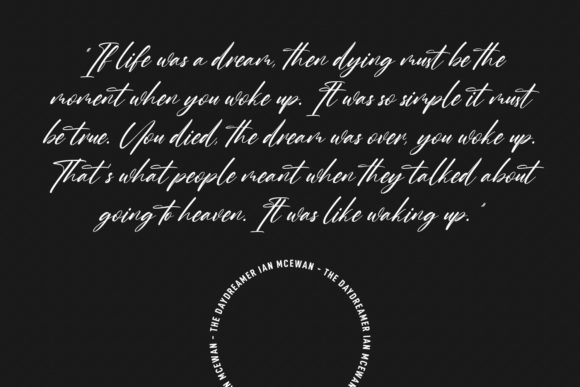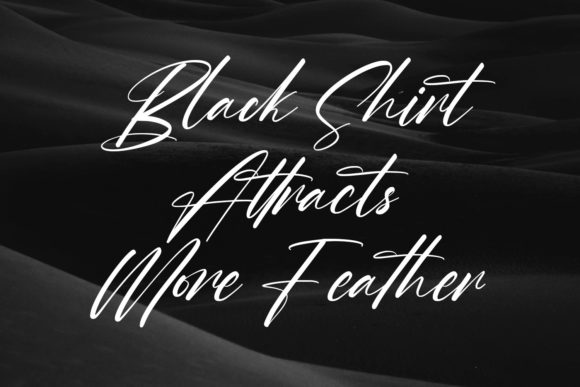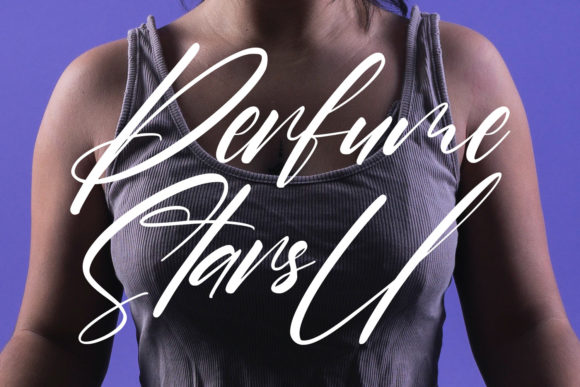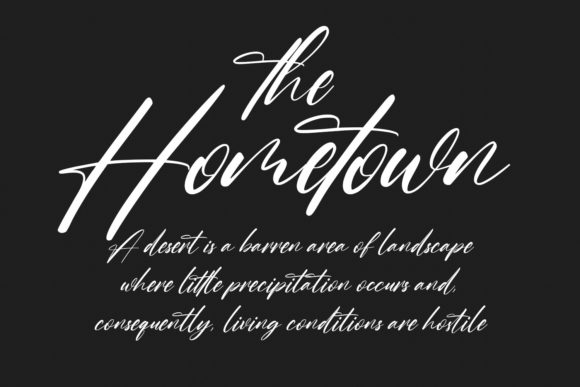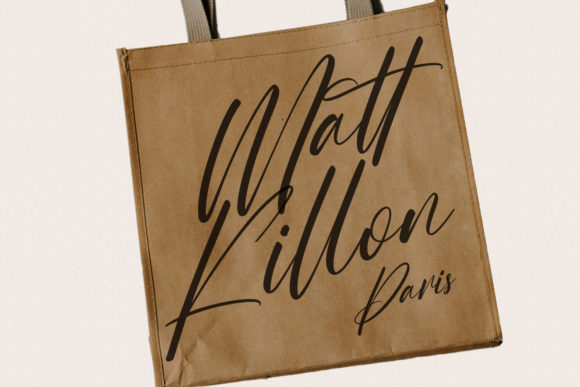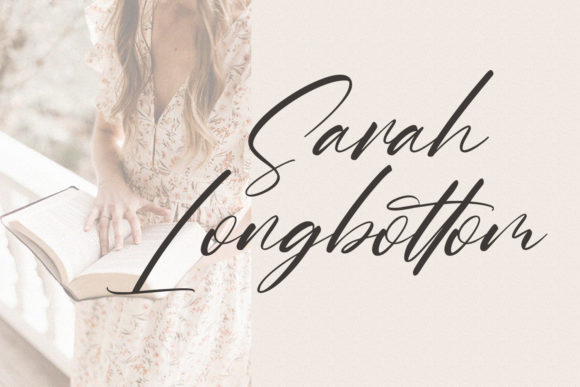
About Charlotte Matthew Font
Charlotte Matthew is an enchanting and sophisticated script font that brings a touch of luxury and whimsy to a wide array of design projects. With its medium contrast strokes, playful characters, and intricate details, this font adds a unique and captivating flair to any creative endeavor.
In the realm of blog posts, Charlotte Matthew shines as a font that effortlessly captures readers’ attention and enhances the visual appeal of your content. Its elegant and flowing letterforms make text easy to read while infusing your blog posts with a sense of charm and personality.
For logos and branding, Charlotte Matthew offers a distinctive and memorable style that helps your brand stand out in a competitive landscape. Its intricate details and variety of ligatures and alternates allow for creative customization, ensuring that your logo is both visually striking and uniquely representative of your brand identity.
In advertisements, this font adds an air of sophistication and elegance that can elevate the impact of your marketing materials. Whether you’re designing print ads, online banners, or social media posts, Charlotte Matthew’s versatile and stylish characters will draw viewers’ attention and leave a lasting impression.
Invitations and greeting cards are transformed into works of art with Charlotte Matthew. Its whimsical and fancy script adds a touch of extravagance to special occasions, making every invitation a memorable keepsake and every greeting card a delightful memento.
The font’s versatility extends to planners, photo albums, and decorations, where its ornate details and playful charm enhance the visual appeal of your designs. Whether you’re creating decorative elements for an event or designing a personalized photo album, Charlotte Matthew’s medium contrast strokes and fun characters make each project a true work of art.
With its wide range of potential applications, Charlotte Matthew proves to be a versatile and captivating choice for designers seeking a font that exudes both sophistication and playfulness. Its inclusion of ligatures and alternates allows for creative exploration and customization, ensuring that each project is infused with a unique and delightful touch. Whether you’re working on logos, branding, invitations, blog posts, or any other creative endeavor, Charlotte Matthew is a font that adds a touch of elegance and whimsy to every design.